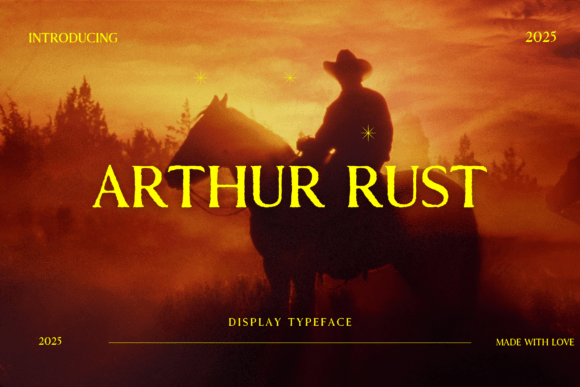
Get Ready to Ride into the Sunset with Arthur Rust Font
Do you ever find yourself lost in the vast expanse of a blank canvas, yearning for a spark that sets your creativity ablaze? For many designers, it’s the perfect moment to break out their trusty font arsenal and ride into the sunset with a typeface that’s as bold as the Wild West itself.
Enter Arthur Rust Font, a display serif font that’s here to transport your designs back to the rugged charm of the frontier. This font is more than just a design element – it’s an invitation to explore the untamed beauty of the Old West, reimagined for today’s creative pioneers. With its sweeping serifs and bold letterforms, Arthur Rust Font brings a touch of vintage elegance and modern grit to every project, making it an invaluable addition to any designer’s toolkit.
So saddle up and let Arthur Rust Font lead the way. Your next masterpiece is waiting to be written in the language of the frontier.
Arthur Rust Font Key Features
- Font Family: Arthur Rust Font is a serif font family with a classic and elegant design.
- Font Size: The font family is available in various sizes, ranging from 8pt to 72pt, making it suitable for a wide range of applications.
- Resolution: Designed for high-resolution displays, the font family supports resolutions up to 300 DPI.
- Unique Characteristics: Arthur Rust Font features a distinctive x-height, making it highly legible, especially in body text. Its classic design also makes it suitable for use in formal and professional settings.
- Language Support: Supports a wide range of languages, including Latin, Greek, and Cyrillic scripts.
Designer Review: Arthur Rust Font
When I first laid eyes on the Arthur Rust Font, I was struck by its unique blend of vintage charm and modern sophistication. ✨ The font’s distressed texture and subtle imperfections give it a truly handmade feel that’s sure to add character to any design.
One of the standout features of the Arthur Rust Font is its versatility. ✨ It works beautifully for both digital and print designs, from logos and branding materials to packaging and signage. The font’s range of weights and styles makes it easy to adapt to different design needs.
However, there are a few limitations to consider. ⚠️ The font’s distressed texture can sometimes make it difficult to read, particularly in small sizes or when used in large blocks of text. Additionally, the font’s style may not be suitable for all types of designs, particularly those that require a more clean and minimalist aesthetic.
Overall, I’d say the Arthur Rust Font is a great addition to any designer’s toolkit. While it may have some limitations, its unique character and versatility make it a great choice for designers looking to add some personality to their work.
- Unique blend of vintage charm and modern sophistication
- Distressed texture adds character to designs
- Works well for digital and print designs
- Range of weights and styles for versatility
Arthur Rust Font is ideal for:
- Creating vintage or distressed text effects.
- Adding a rustic or retro feel to your designs.
- Designing invitations, posters, or other promotional materials.
Remember to experiment with different font sizes and styles to get the most out of the Arthur Rust Font.
Compared to Arthur Rust Font, Great Vibes has a more refined and polished look, making it suitable for high-end designs. However, Arthur Rust Font has a more playful and vintage feel that may be better suited for designs with a retro or nostalgic theme.
Pacifico is a beautiful, elegant script font that exudes a sense of relaxation and calmness. It is perfect for use in designs where a soothing and peaceful atmosphere is required, such as in wellness, travel, and lifestyle branding.
Can I customize the Arthur Rust Font for my specific design needs?
While the Arthur Rust Font is designed to be highly customizable, it is not recommended to heavily modify the font without proper knowledge and expertise. However, you can adjust the font’s size, color, and style to suit your design needs. Additionally, you can use the font’s OpenType features to create custom ligatures, swashes